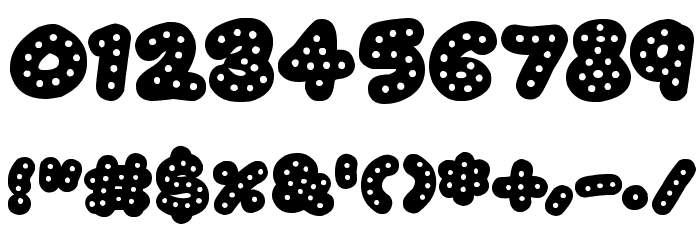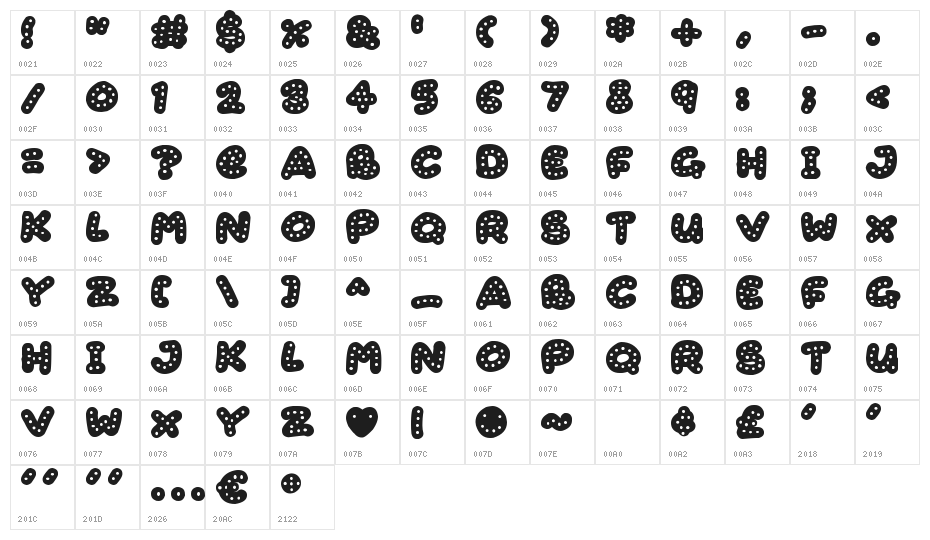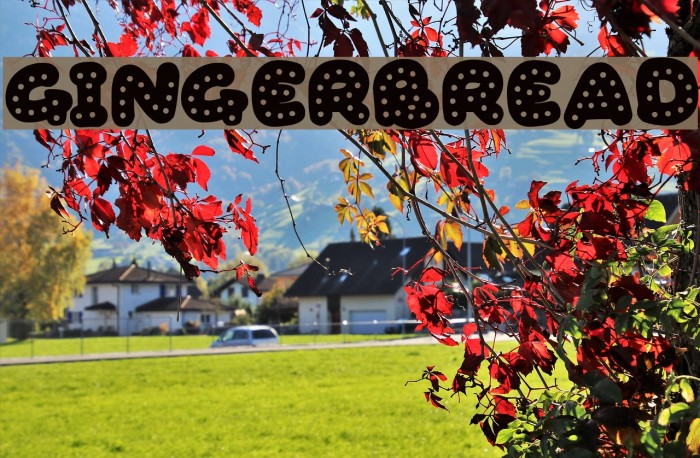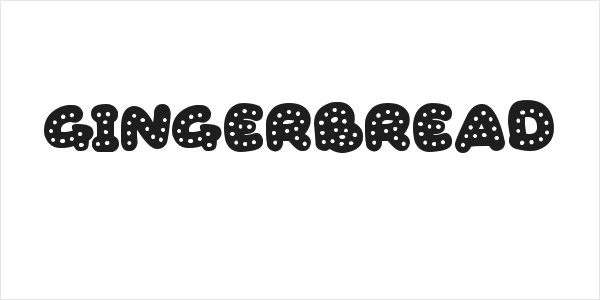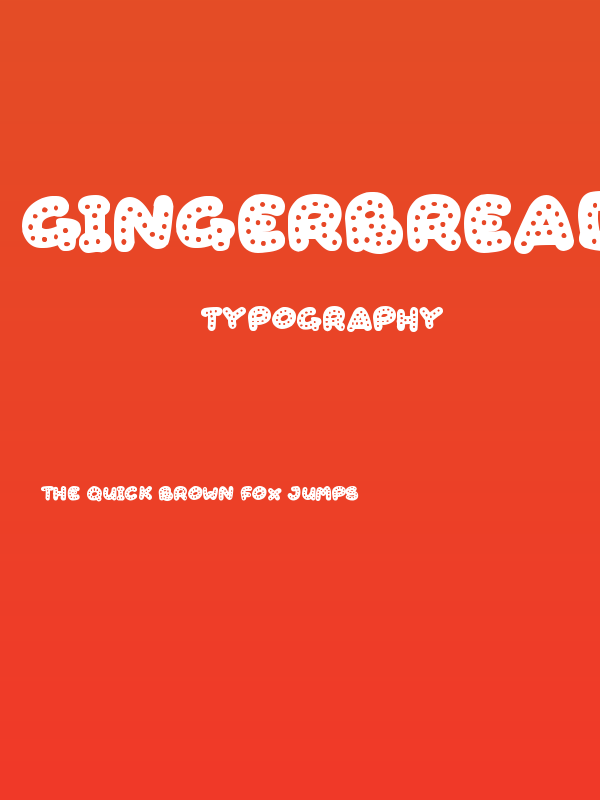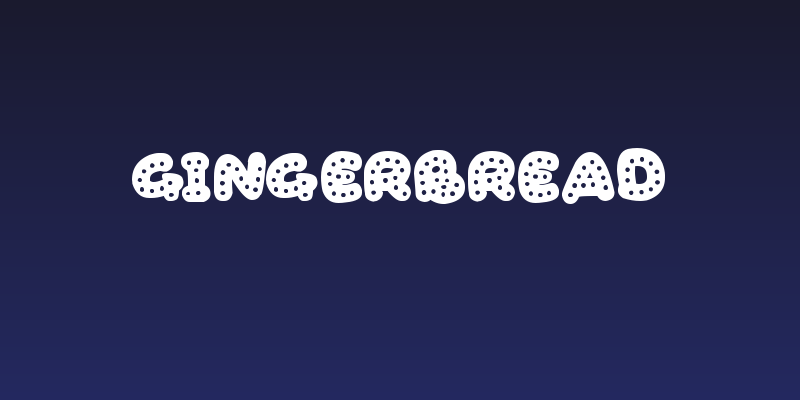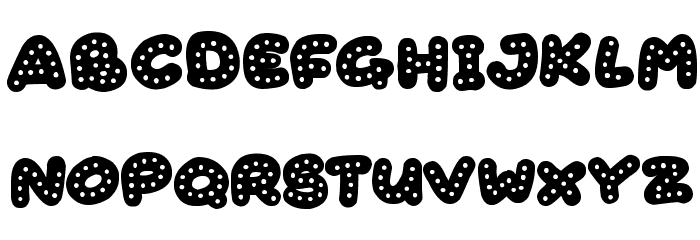
Gingerbread Font
Gingerbread Description
This playful and whimsical font features bold, rounded characters adorned with small circular cutouts, reminiscent of gingerbread cookies decorated with icing. The letters have a uniform thickness, creating a cohesive and friendly appearance. The font's design evokes a sense of fun and creativity, making it ideal for festive and lighthearted projects. Its unique style is both eye-catching and memorable, perfect for capturing attention in various design contexts.